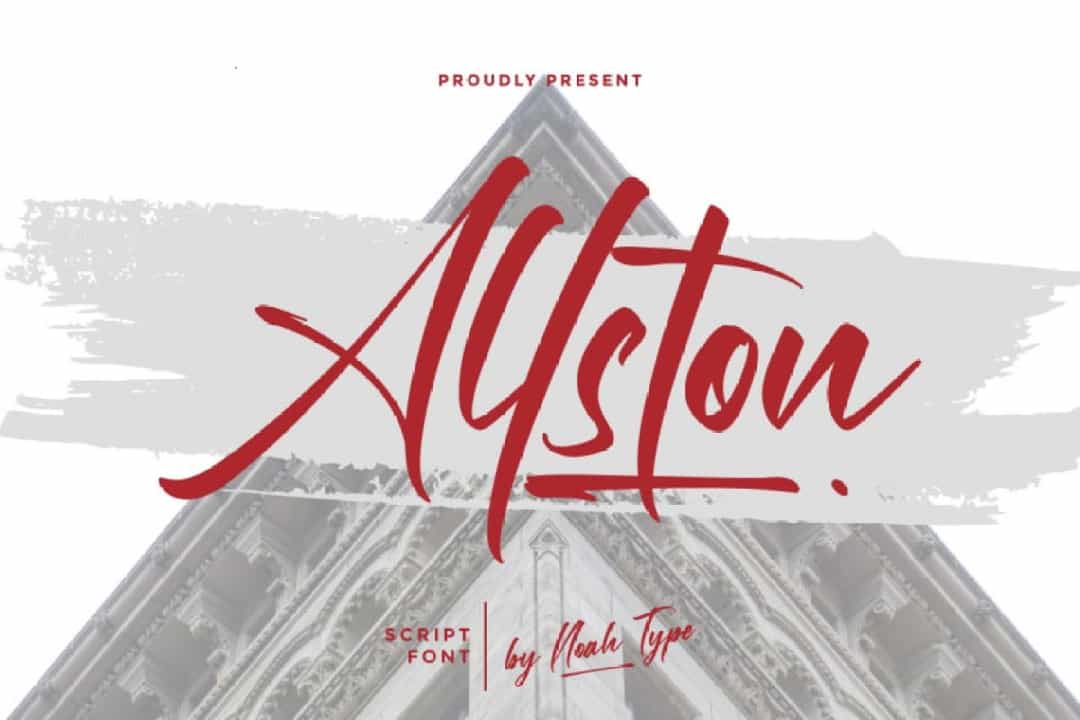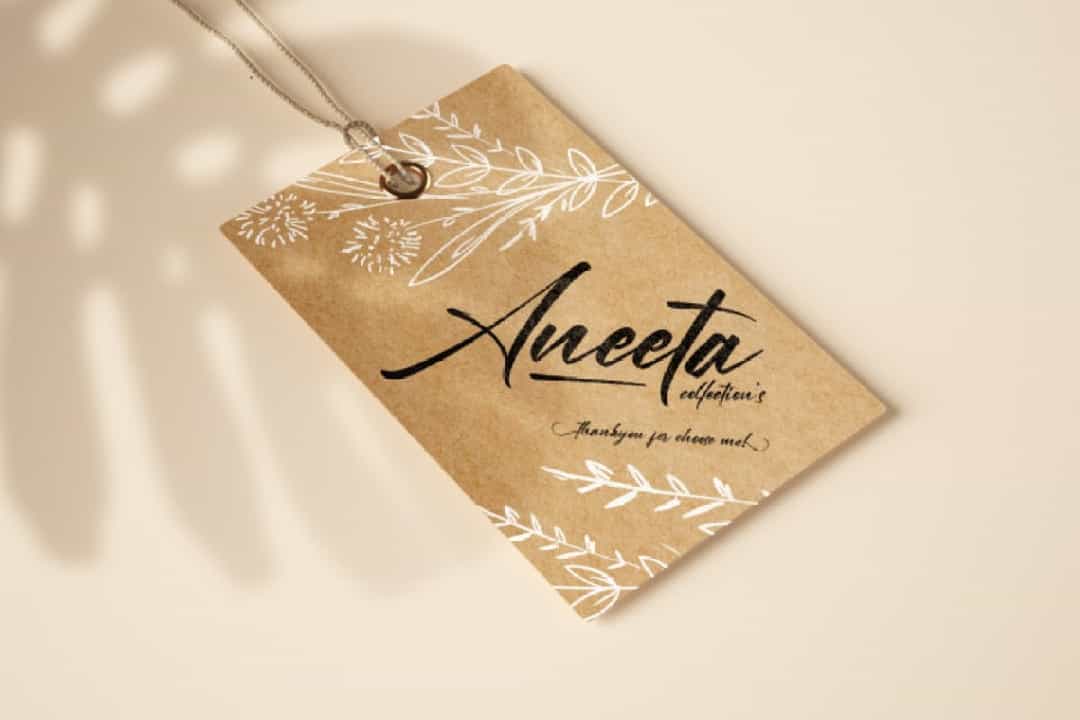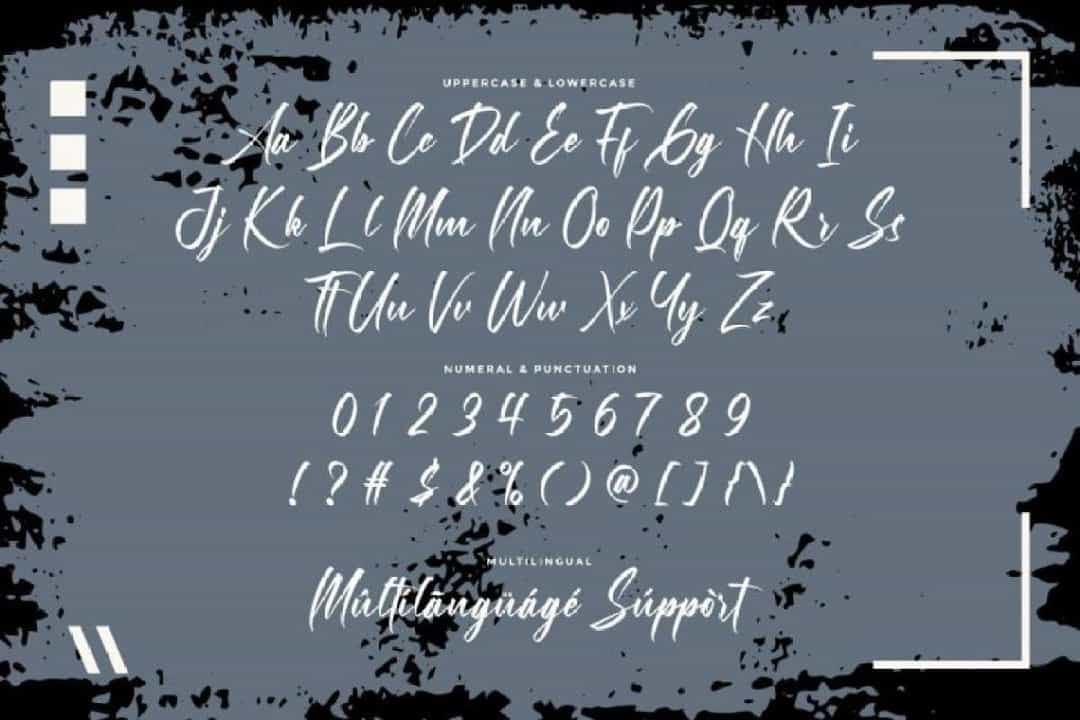
Allston is an exquisite font featuring contemporary Brush script characters. Careful consideration has gone into every element of its design to ensure it produces optimal combinations for each character and to provide the ideal experience when using Allston later on. When we design fonts we hope that our work leaves an authentic impression with its use later on.